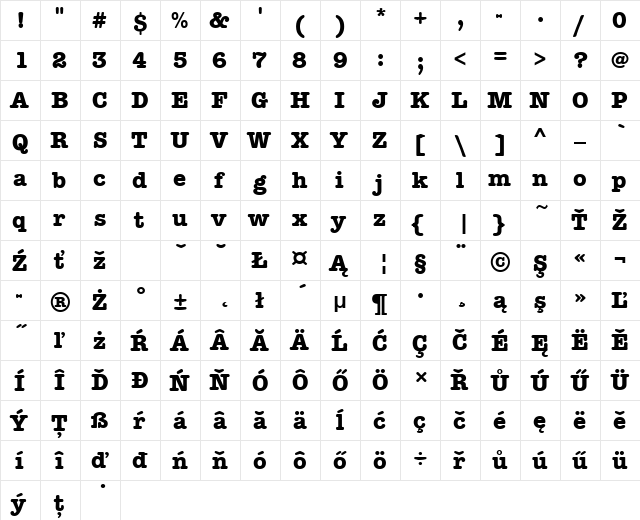
AmericanTypItcDEEBol Regular
Design Context for AmericanTypItcDEEBol Typeface
AmericanTypItcDEEBol is a composed and adaptable typeface that performs quietly and consistently across a wide range of design contexts.